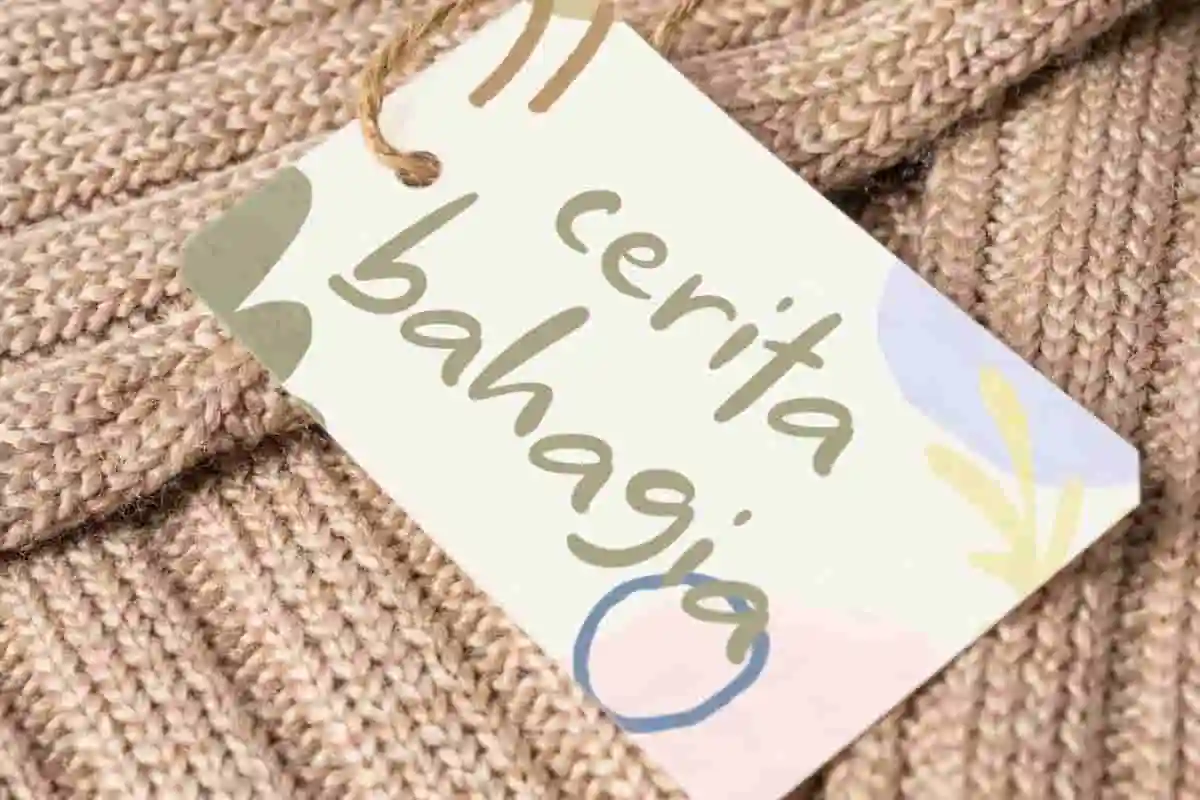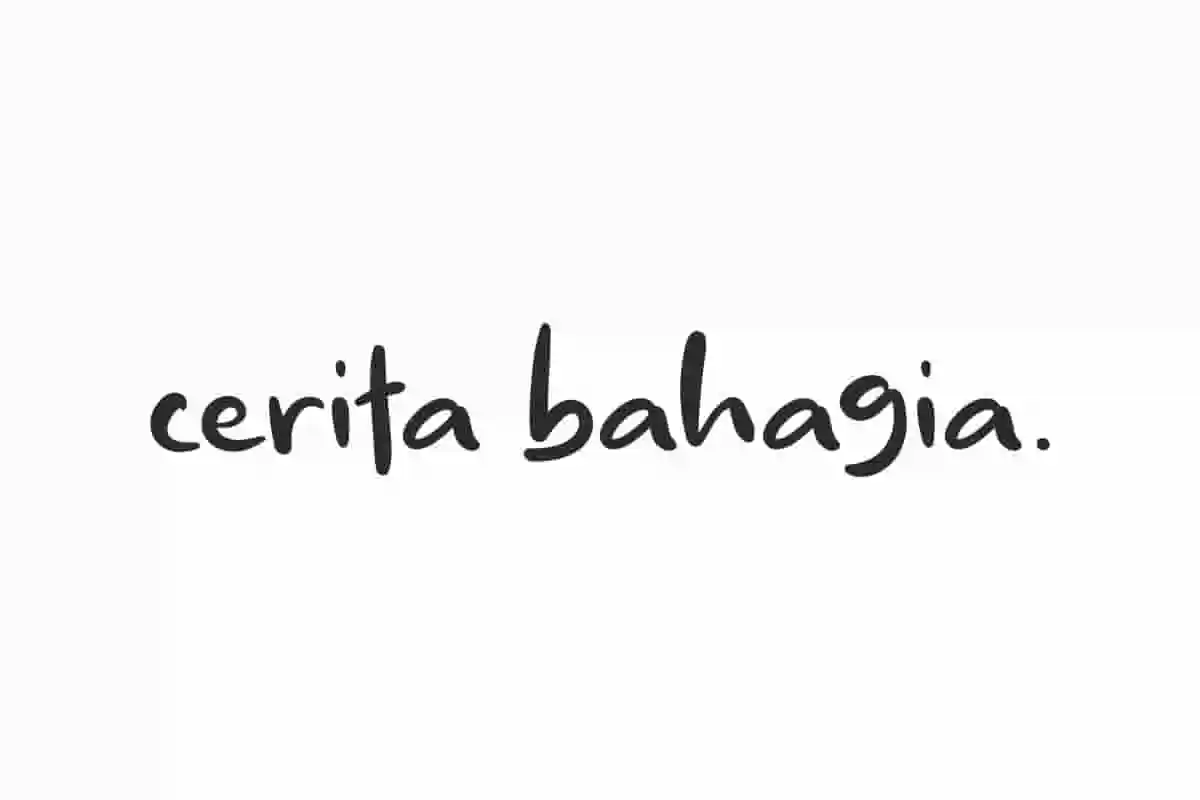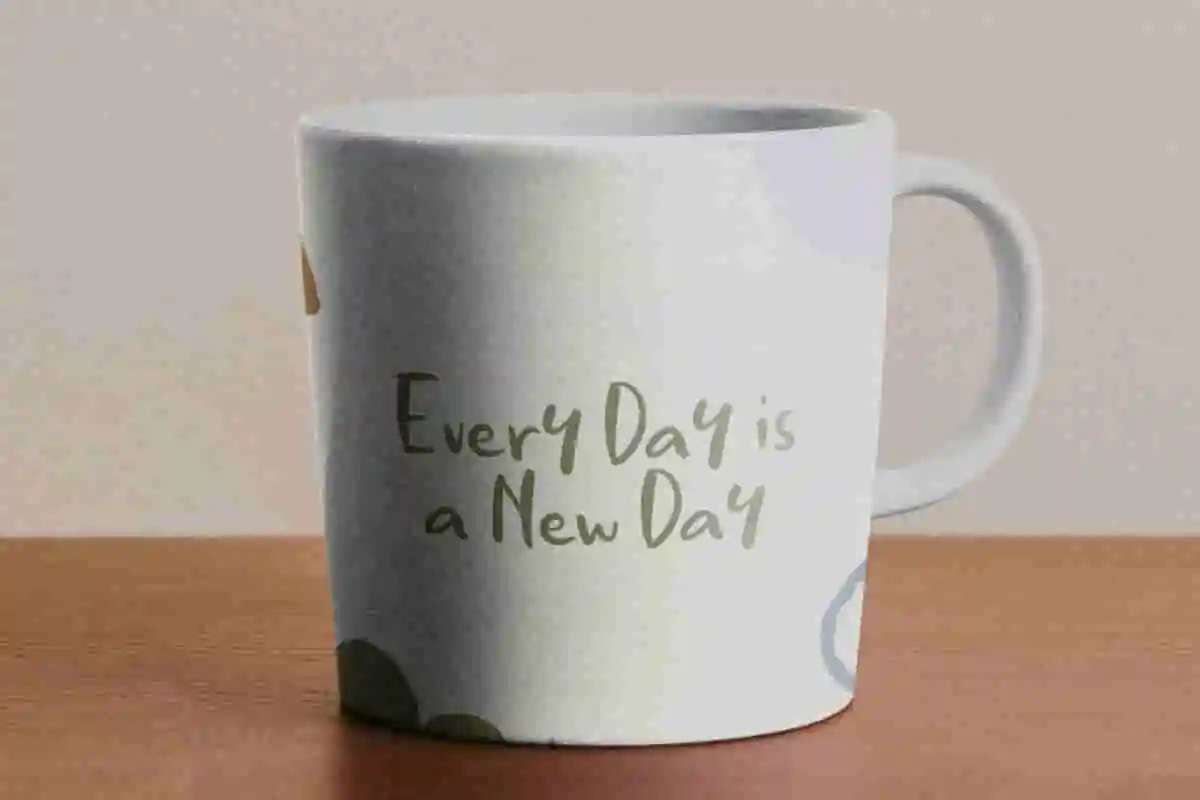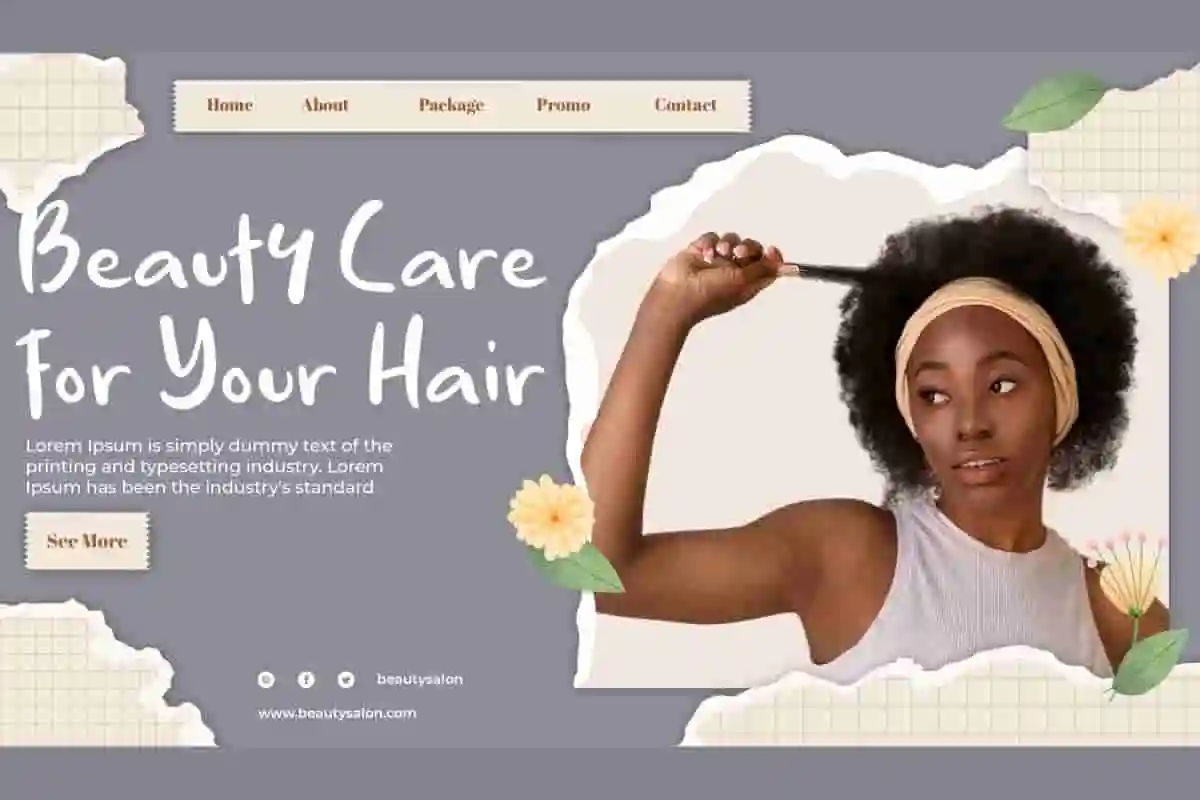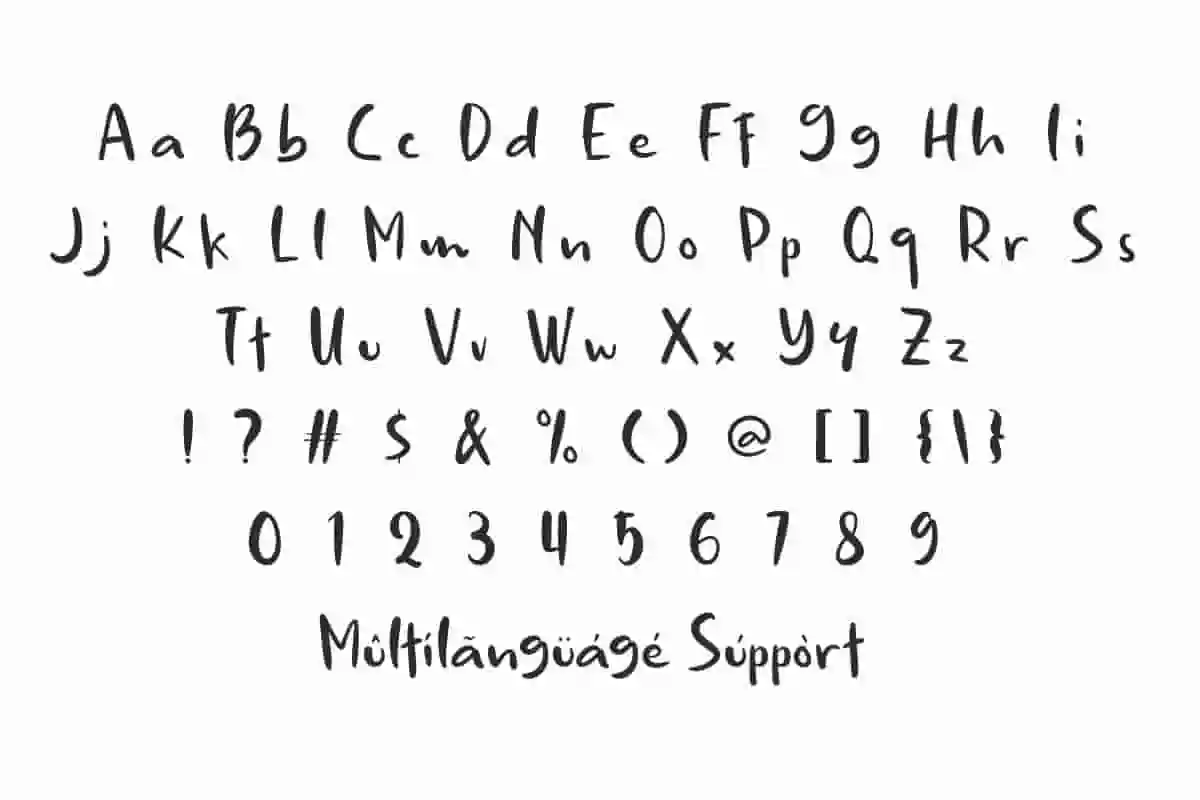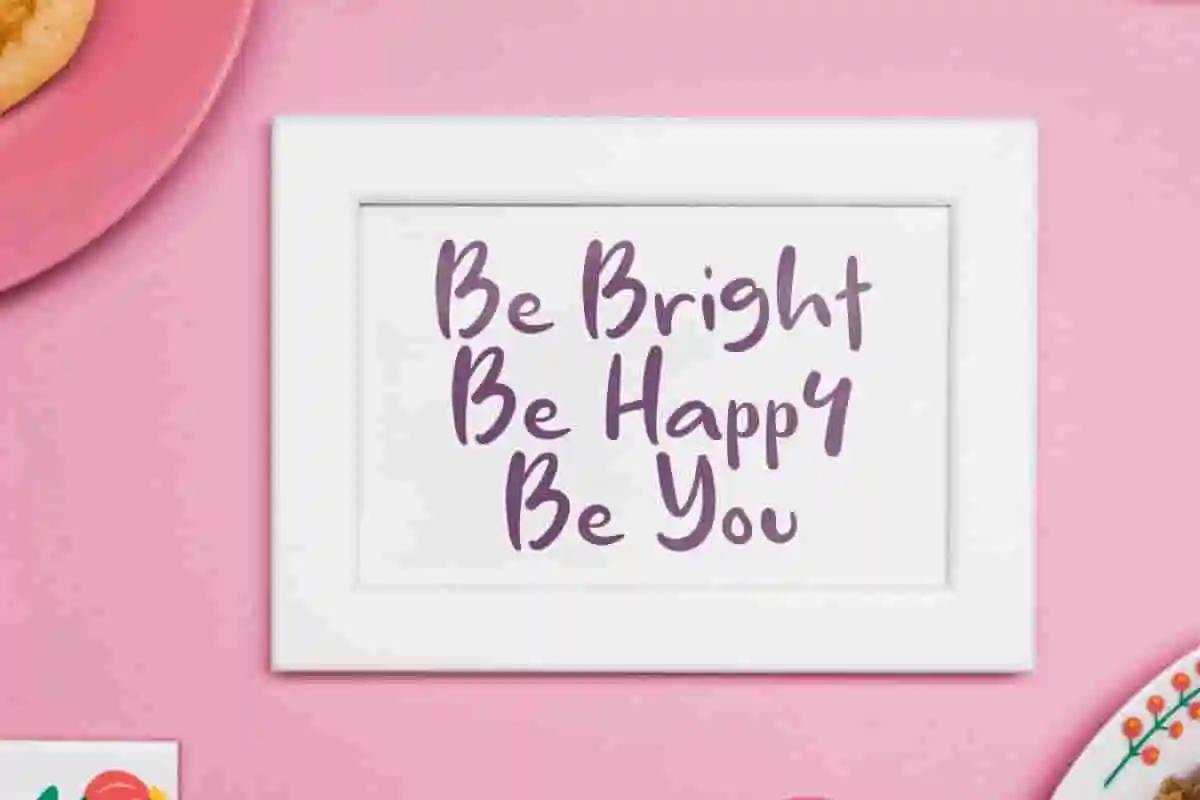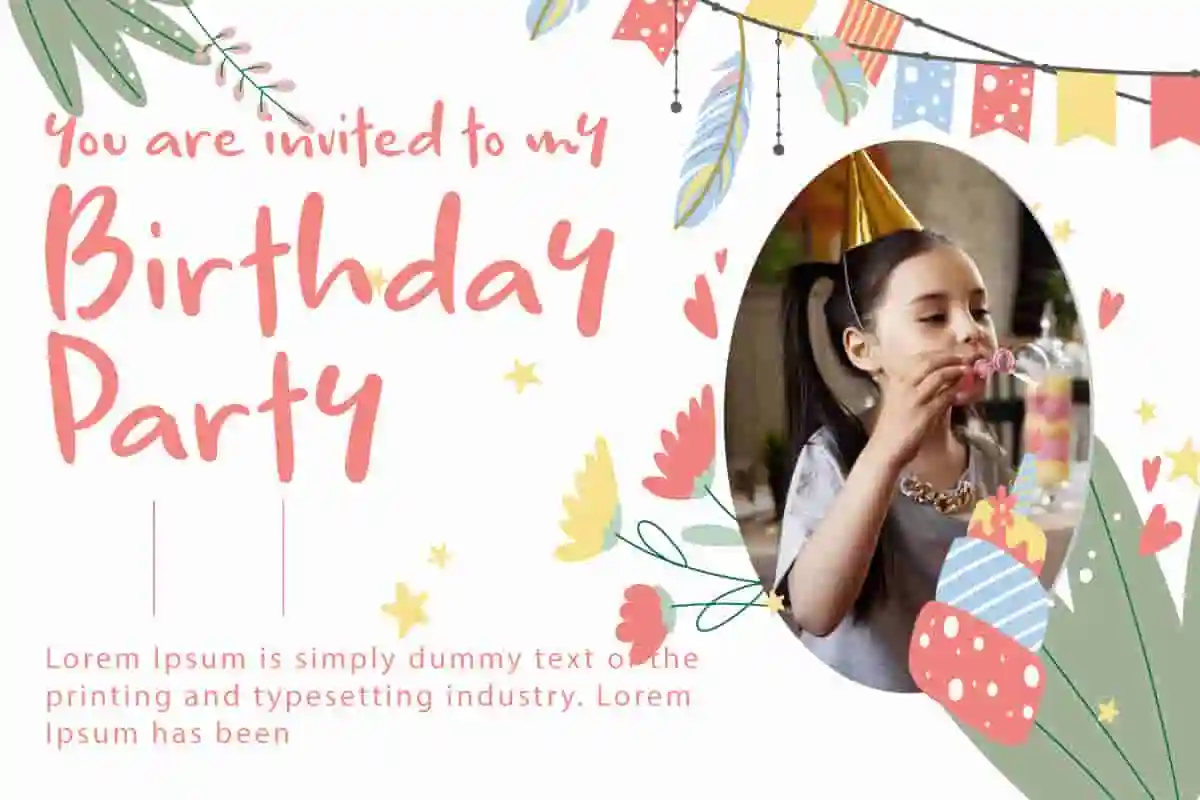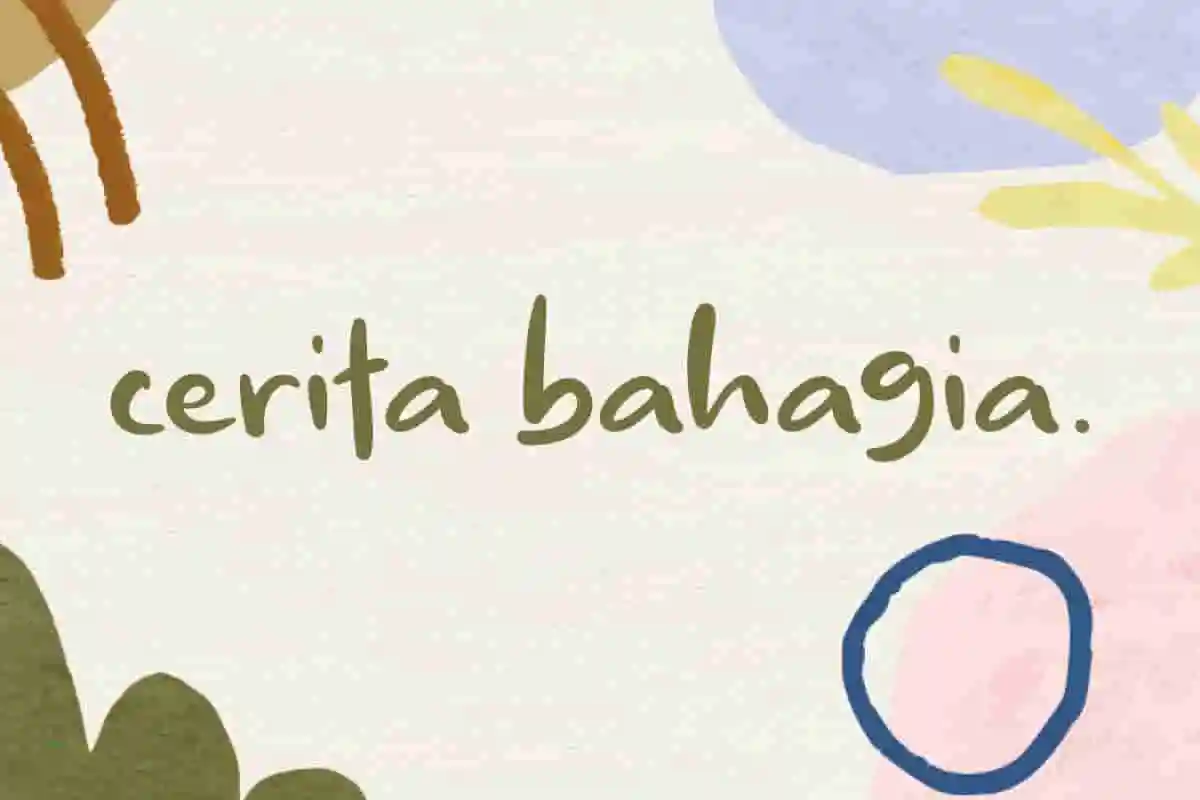
Cerita Bahagia Font is a charming cute display font created with a genuine handmade touch connected with perfect beauty to give a special feeling.
Cerita Bahagia Font is a cute, charming and playful display font with a casual appearance so well designed to become a favorite. Whatever the topic, it will become part of your font library and work well for use in your design needs, such as album cover, birthday invitation, blogs, book titles, branding, business cards, greeting cards, logo design, packaging, poster, quotes, screen printing, signage, sticker, write on the merchandise, etc.
Cerita Bahagia Font includes a complete set of Basic Uppercase and Lowercase Characters, Numbers, Punctuation Marks and Symbols. A sweet display font with a relaxing theme, showing a beautiful style. This will have the potential to improve the quality of any artistic creation across a wide range of industries, such as accessories and gift, architect, cafe, fashion, furniture, graphic design, handicraft, party organizer, pottery, printing, publishing, sewing, spa salon, writer, and more.